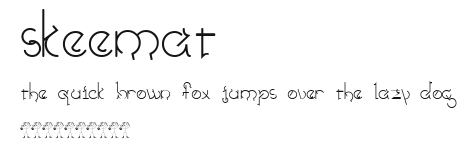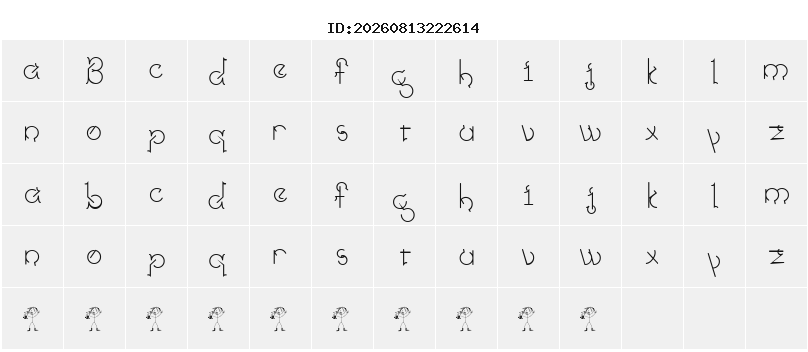
skeemat Preview
About skeemat.ttf
skeemat.ttf is a modern, elegant sans-serif font designed for ultimate readability and visual harmony. Perfect for branding, headlines, web design, and print materials.